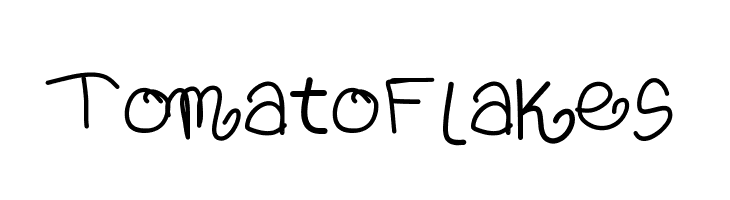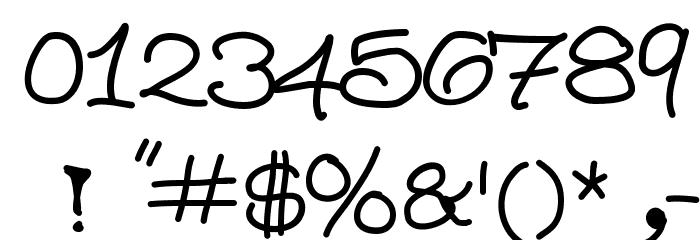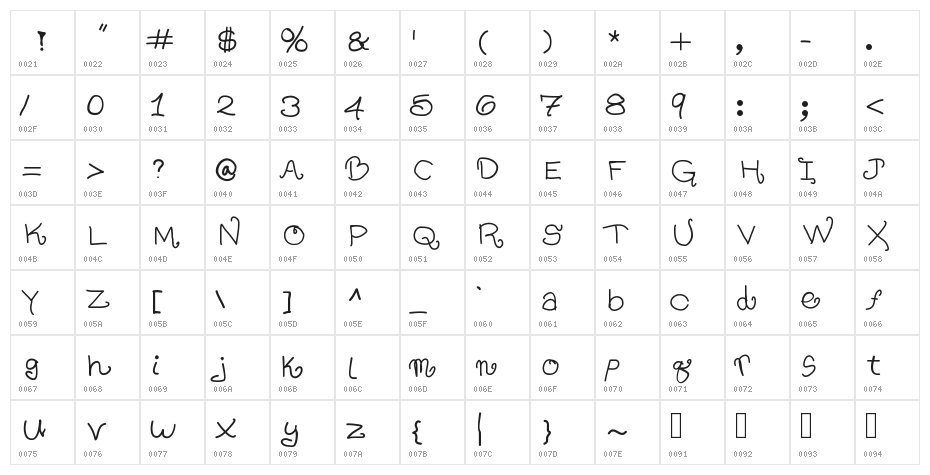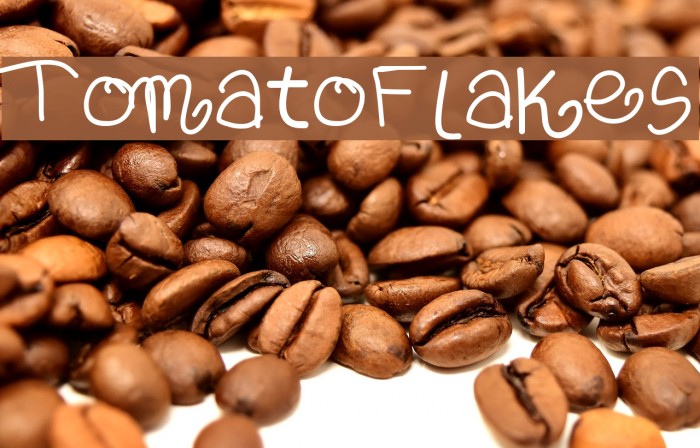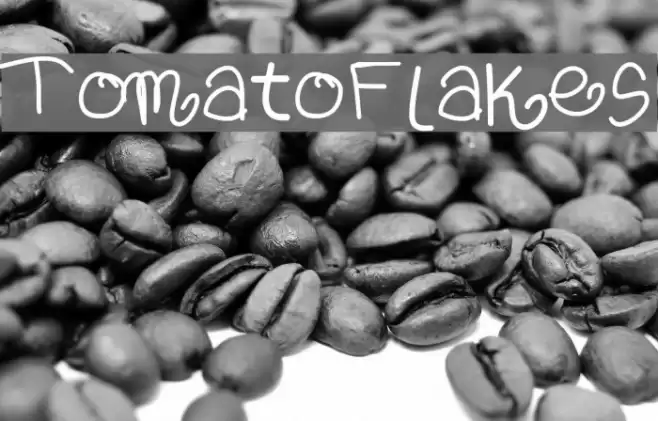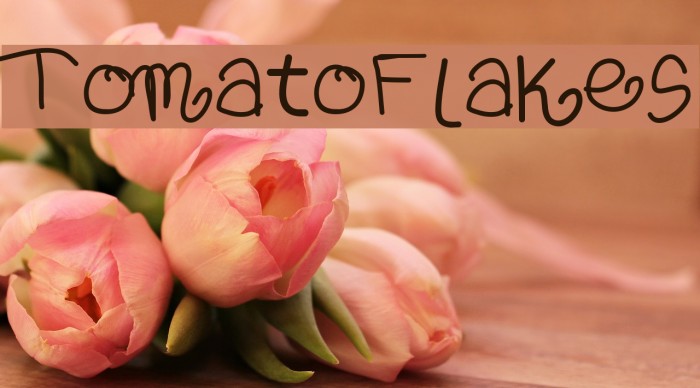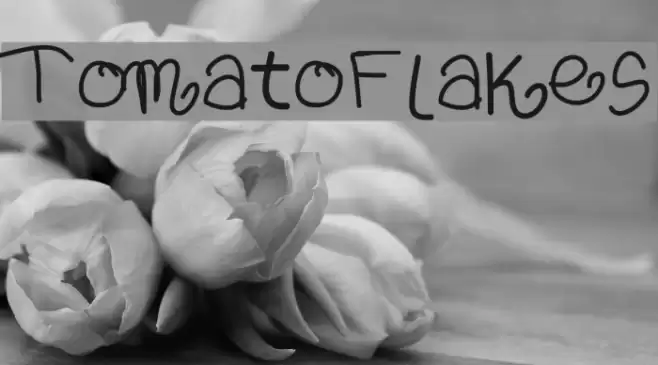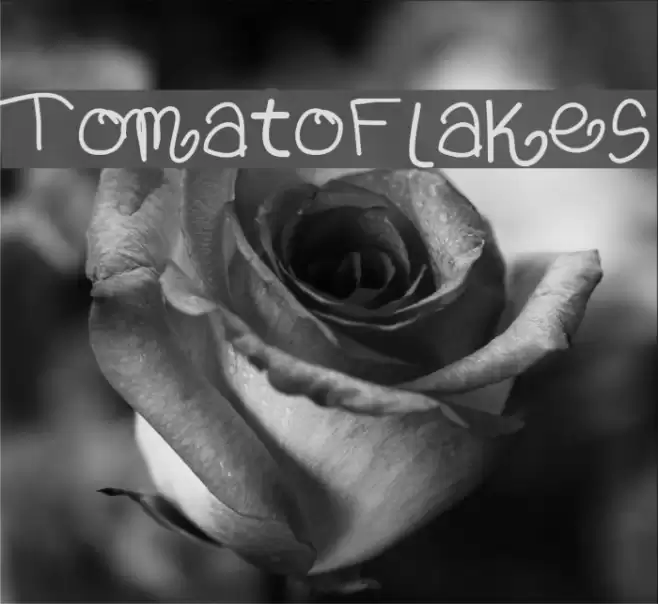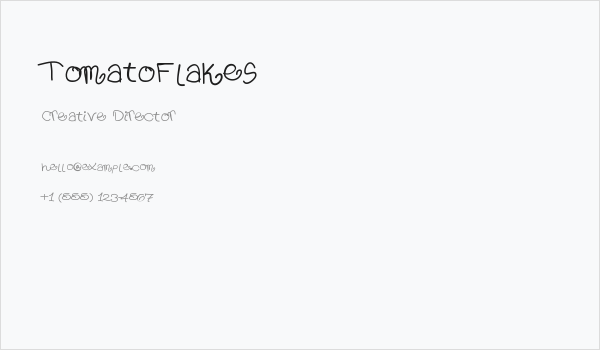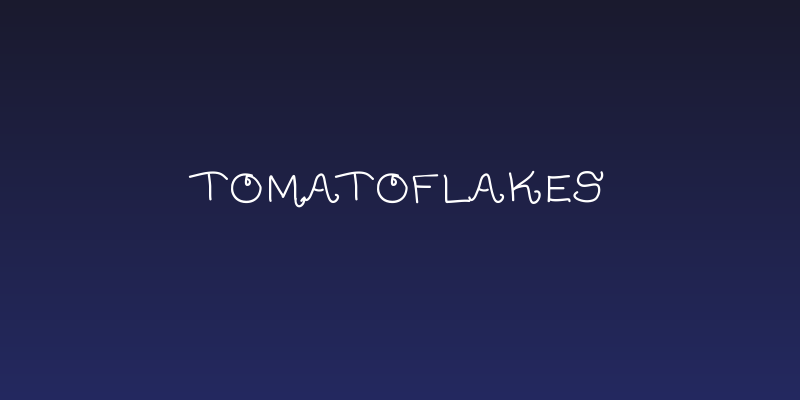
TomatoFlakes Font
TomatoFlakes Description
This playful and whimsical font features a unique blend of curvy and irregular strokes, giving it a hand-drawn appearance. The characters are distinct with a lively and energetic feel, showcasing a mix of rounded and angular elements. The uppercase letters have a quirky charm, while the lowercase letters maintain a consistent flow with occasional loops and swirls. Numbers and special characters follow the same playful style, making this font suitable for creative and informal designs. The overall look is both fun and approachable, perfect for projects that require a touch of personality.
| Proposed Projects | Ideal for children's books, greeting cards, playful branding, and creative posters. |